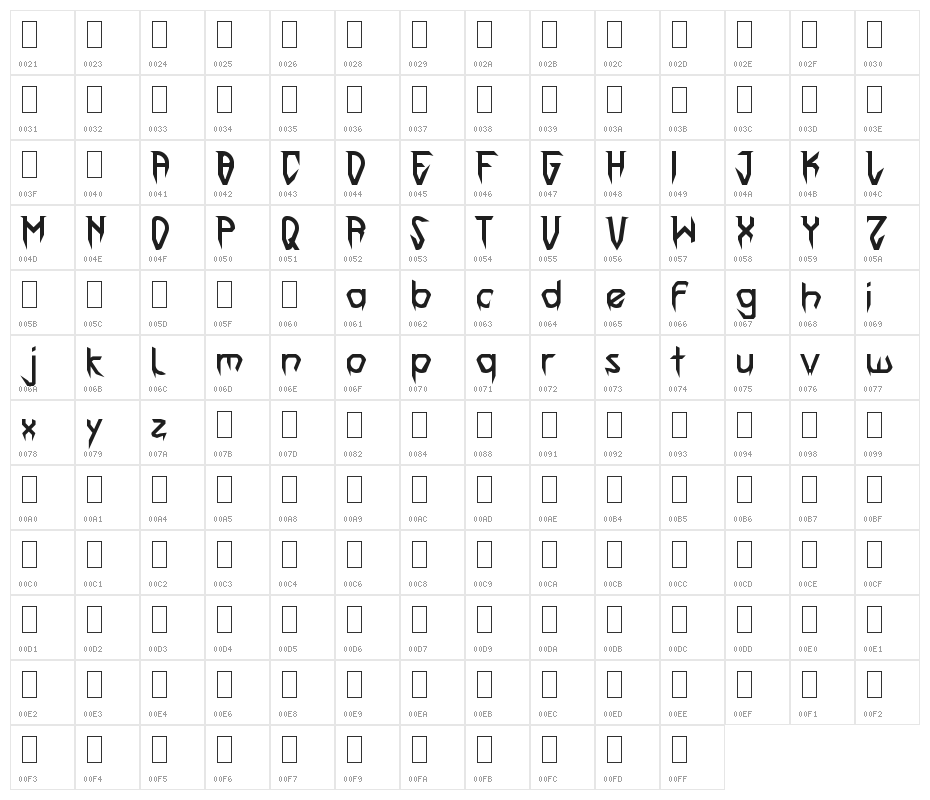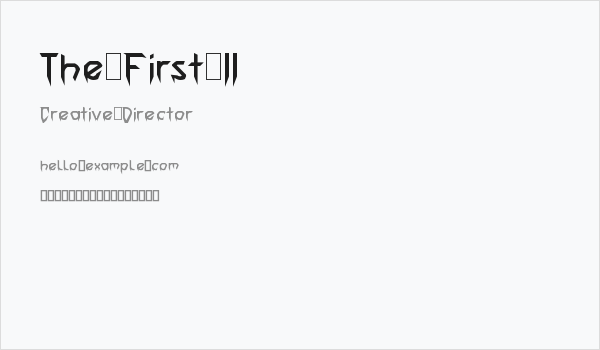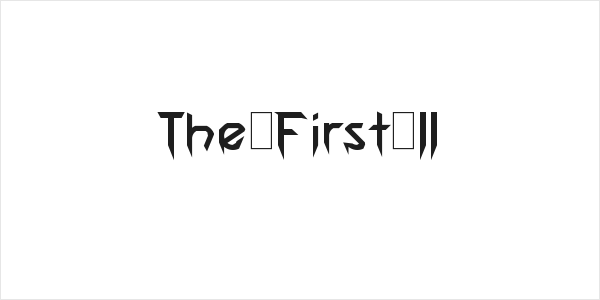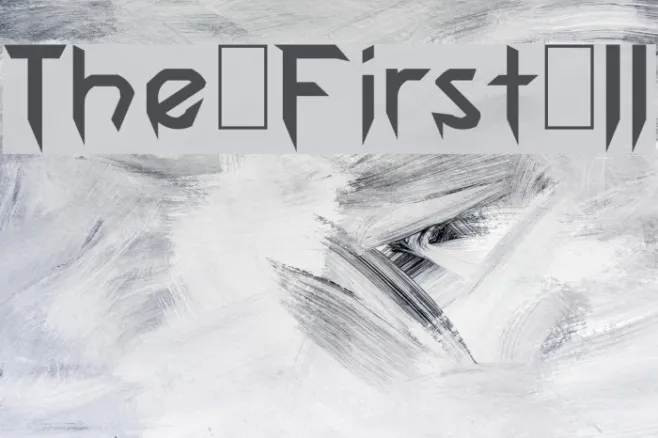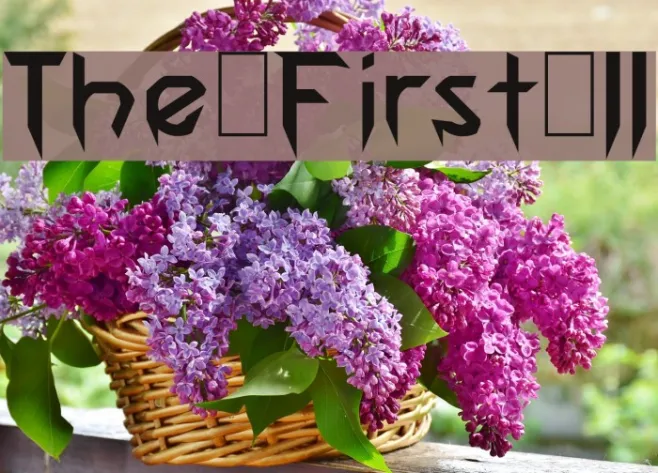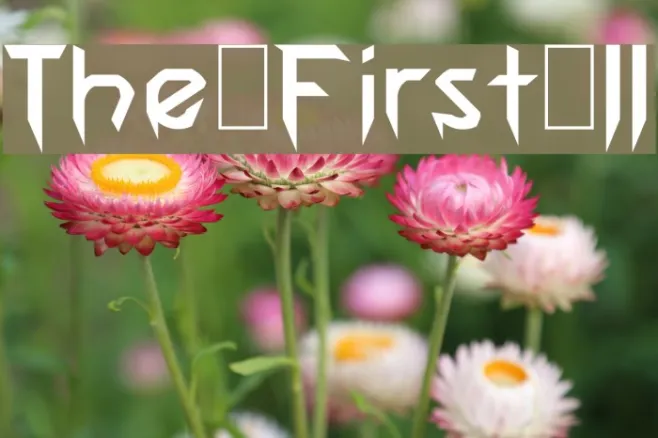
The First II Font
The First II Description
This font features a bold and angular design, characterized by sharp, pointed edges and a geometric structure. The uppercase letters are particularly striking, with a strong presence that commands attention. The lowercase letters maintain the angular theme but with slightly softer curves, offering a balance between rigidity and fluidity. The absence of numbers and special characters suggests a focus on alphabetic display. The overall style is reminiscent of a futuristic or sci-fi aesthetic, making it ideal for projects that require a modern and edgy look.
| Proposed Projects | Ideal for sci-fi themed posters, video game titles, and modern branding projects. |